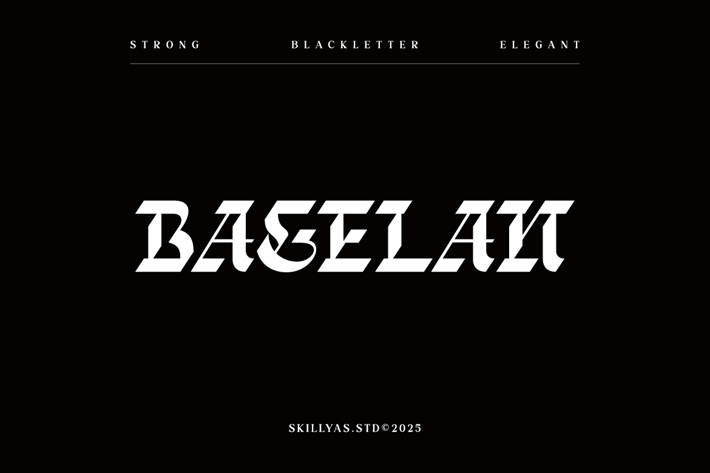
Bagelan Blackletter Font
Bagelan is a Bold and Expressive Blackletter Font with a Vintage Gothic Style.
Ideal for Logos, Posters, Branding, and Tattoo-inspired Designs, it brings a strong, classic, and artistic feel to any project.
Character:
- Uppercase & Lowercase Letters
- Punctuation & Symbols Support
- PUA encoded Range Standard Alternative Style
- Ligature (Standard and Discretionary)